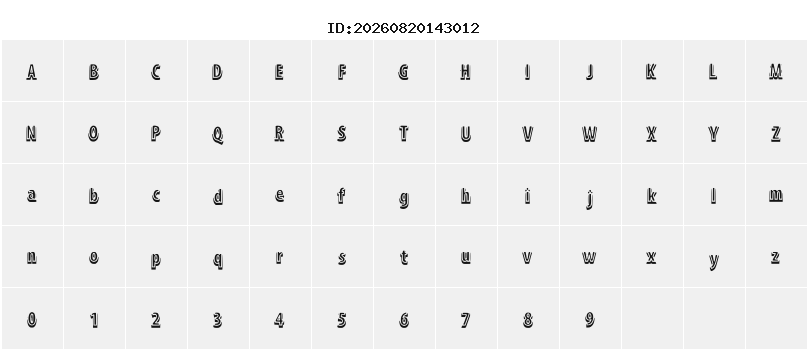
ShadowM Preview
• Font Name: ShadowM
• Full Font Name: ShadowM
• PostScript Name: ShadowM
About ShadowM.ttf
ShadowM.ttf is a modern, elegant sans-serif font designed for ultimate readability and visual harmony. Perfect for branding, headlines, web design, and print materials.